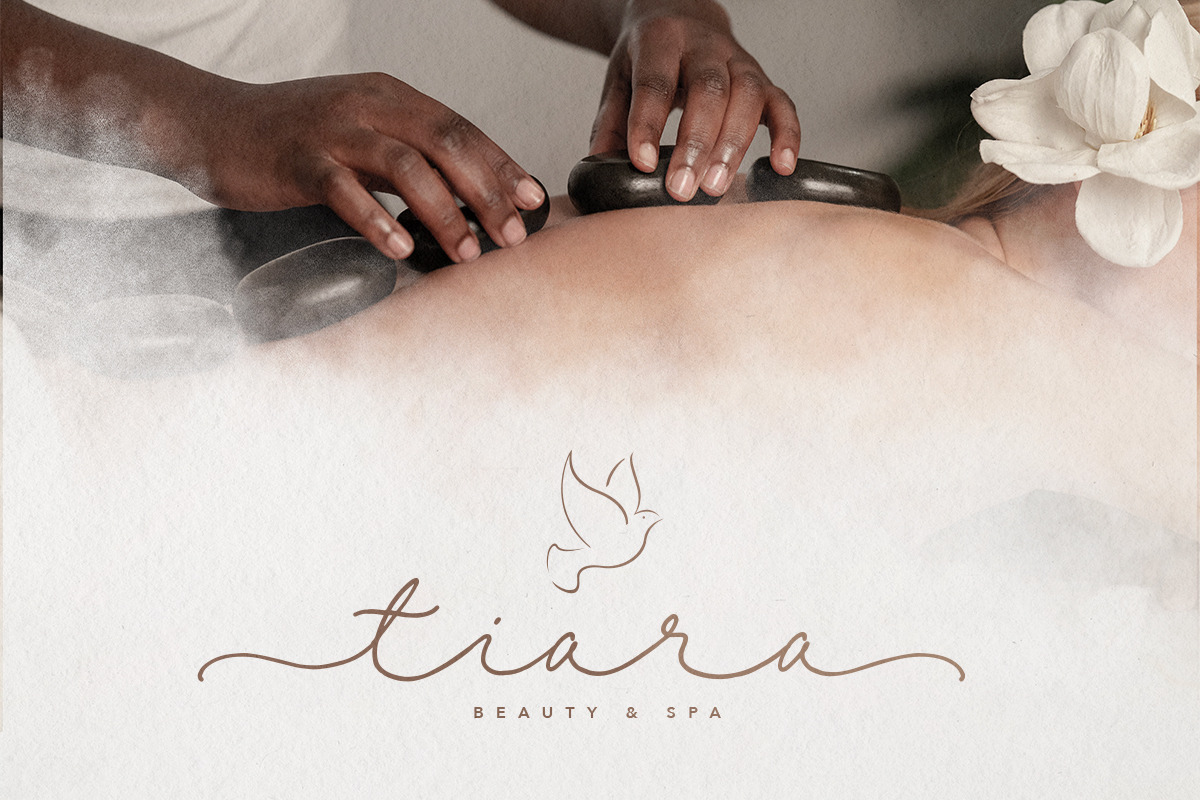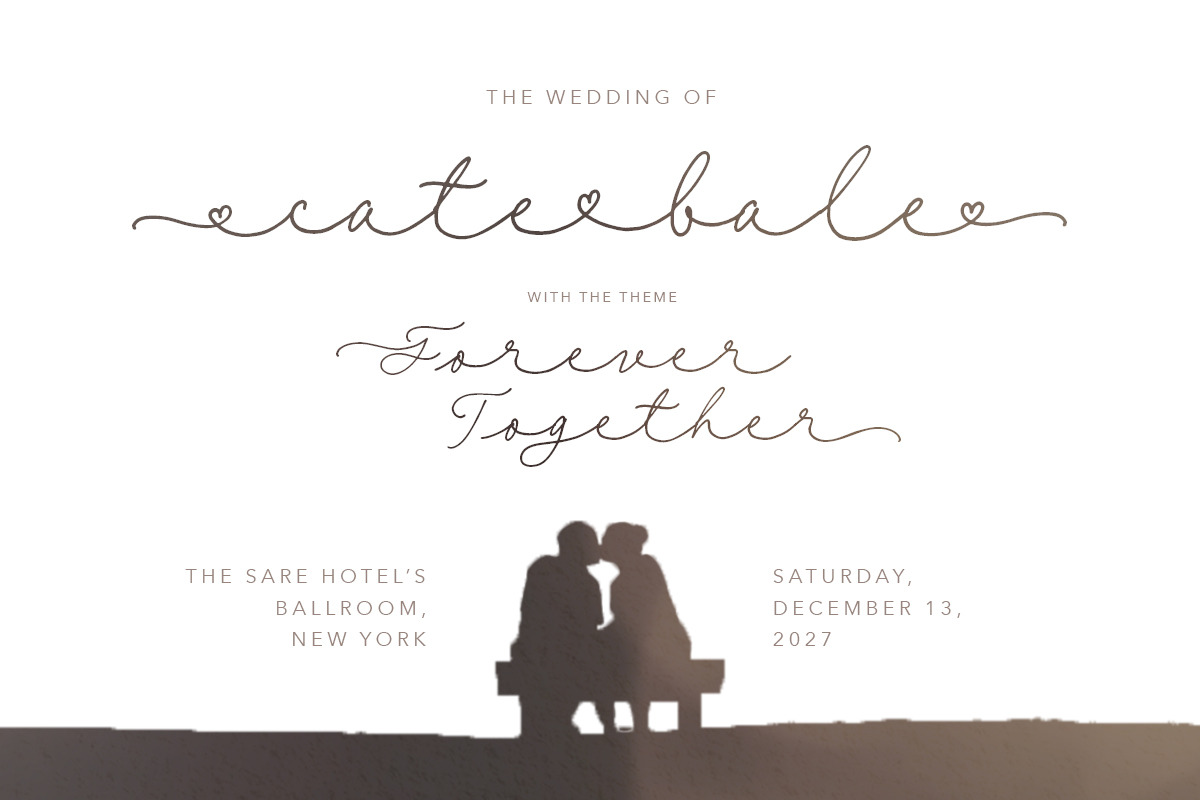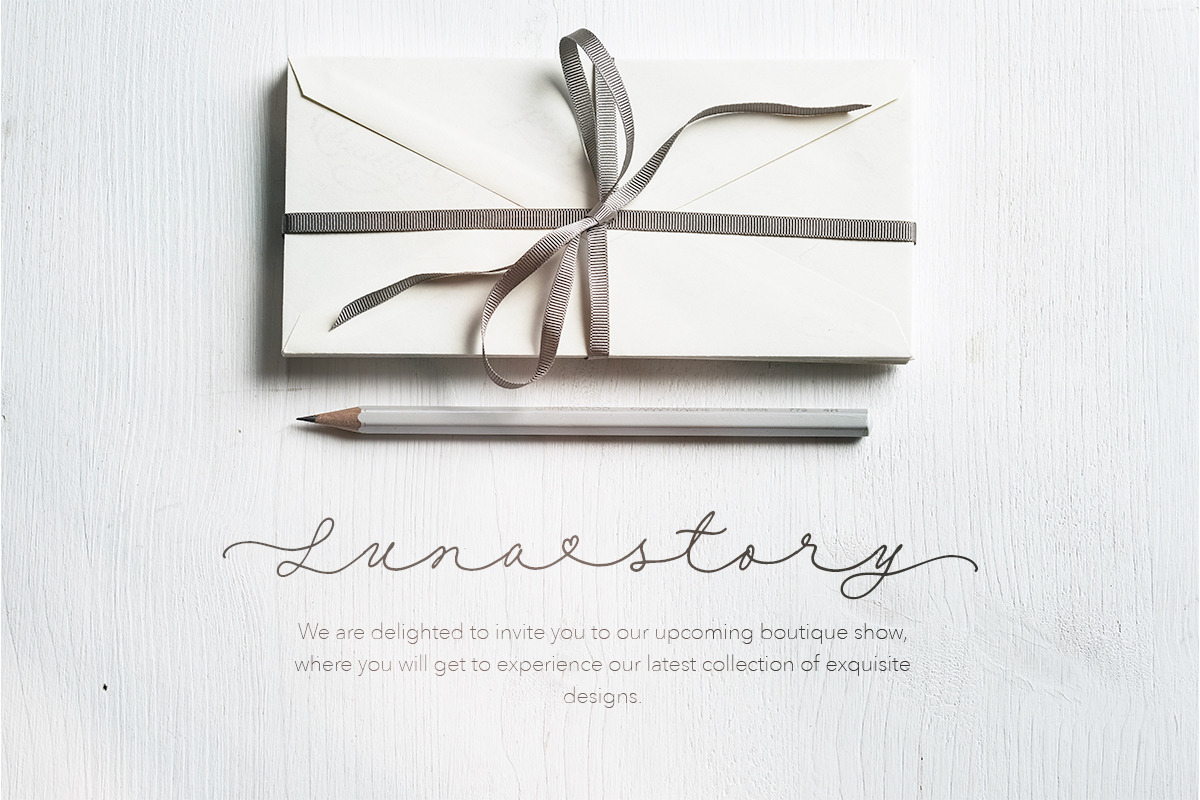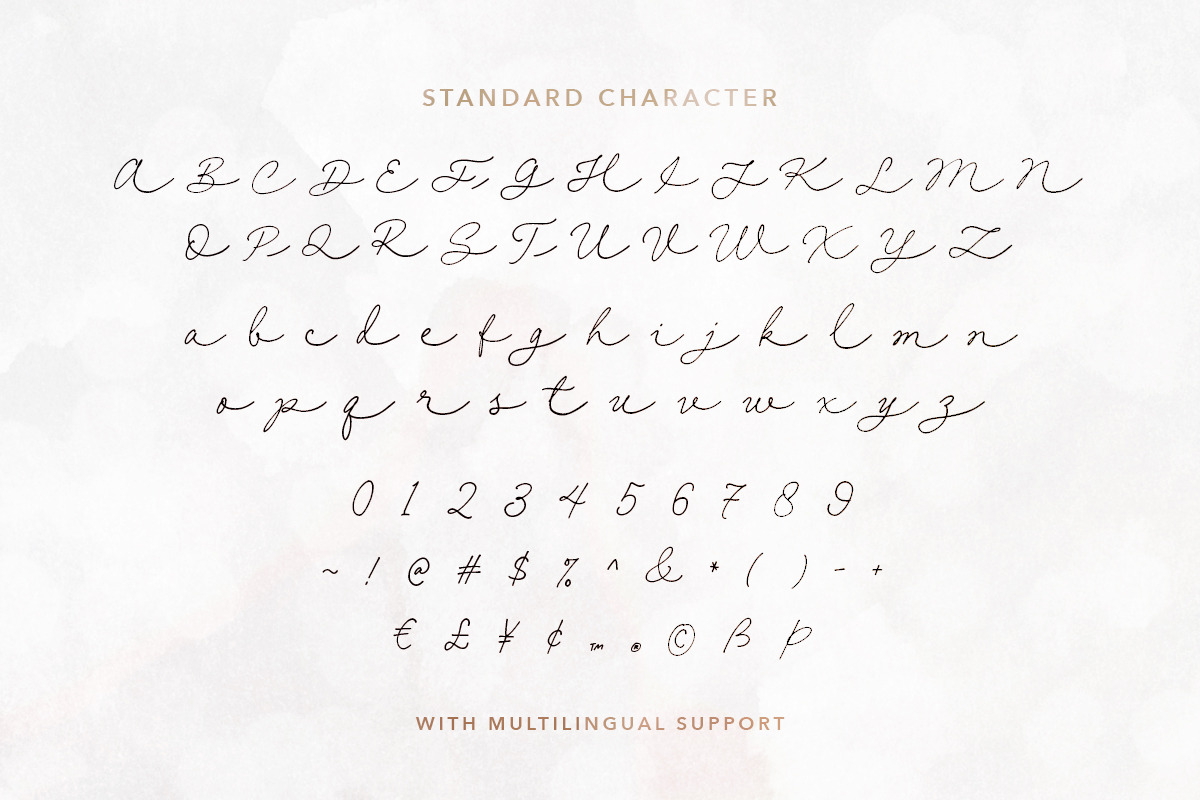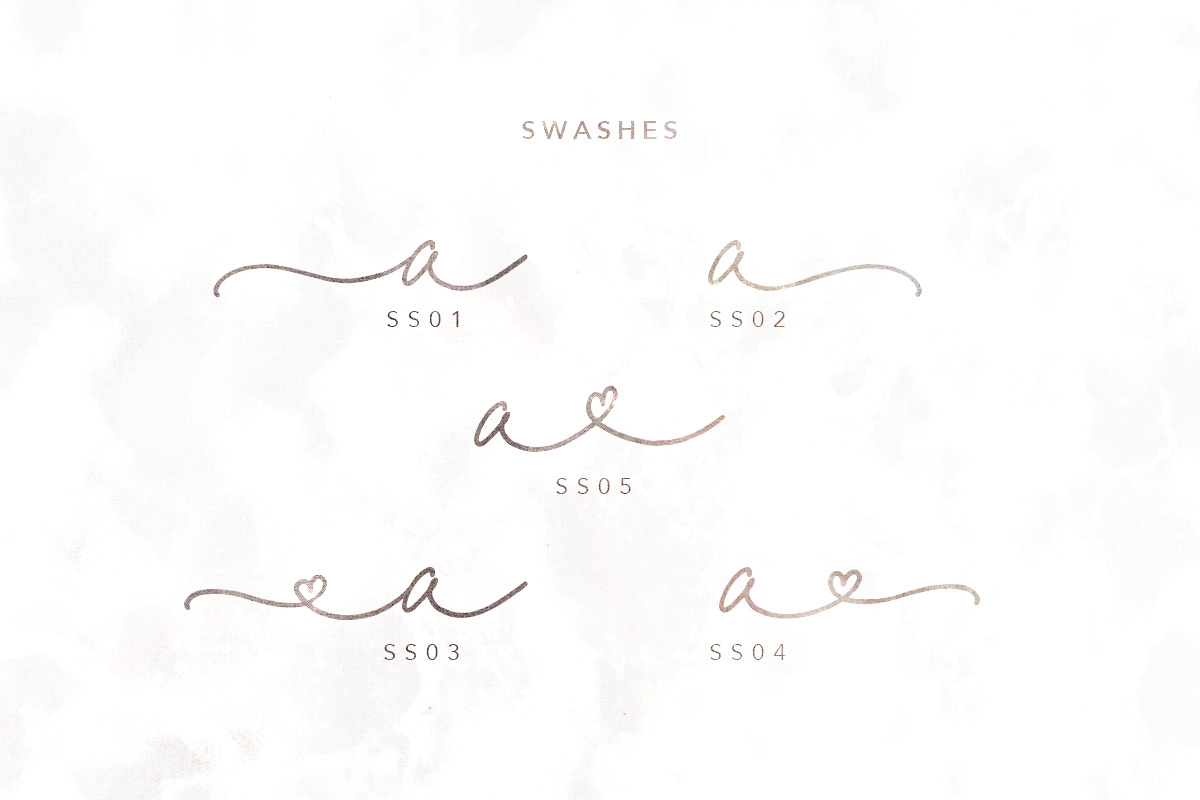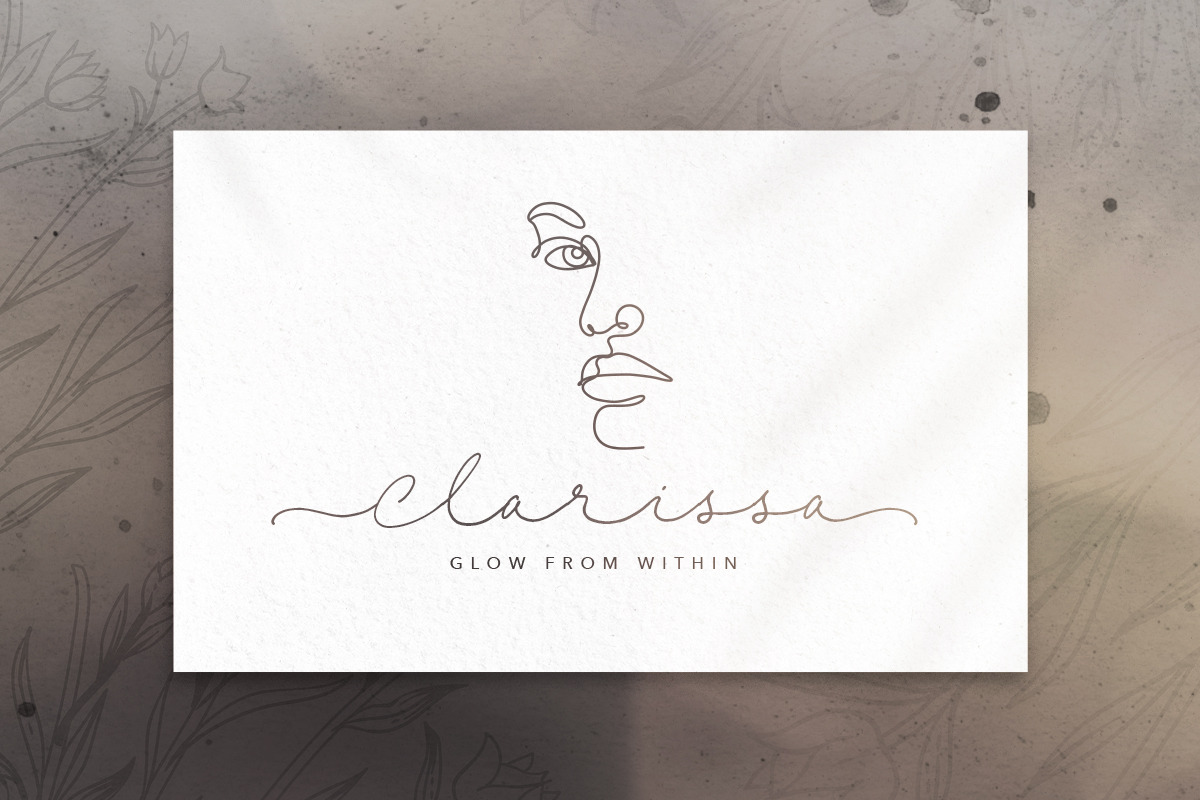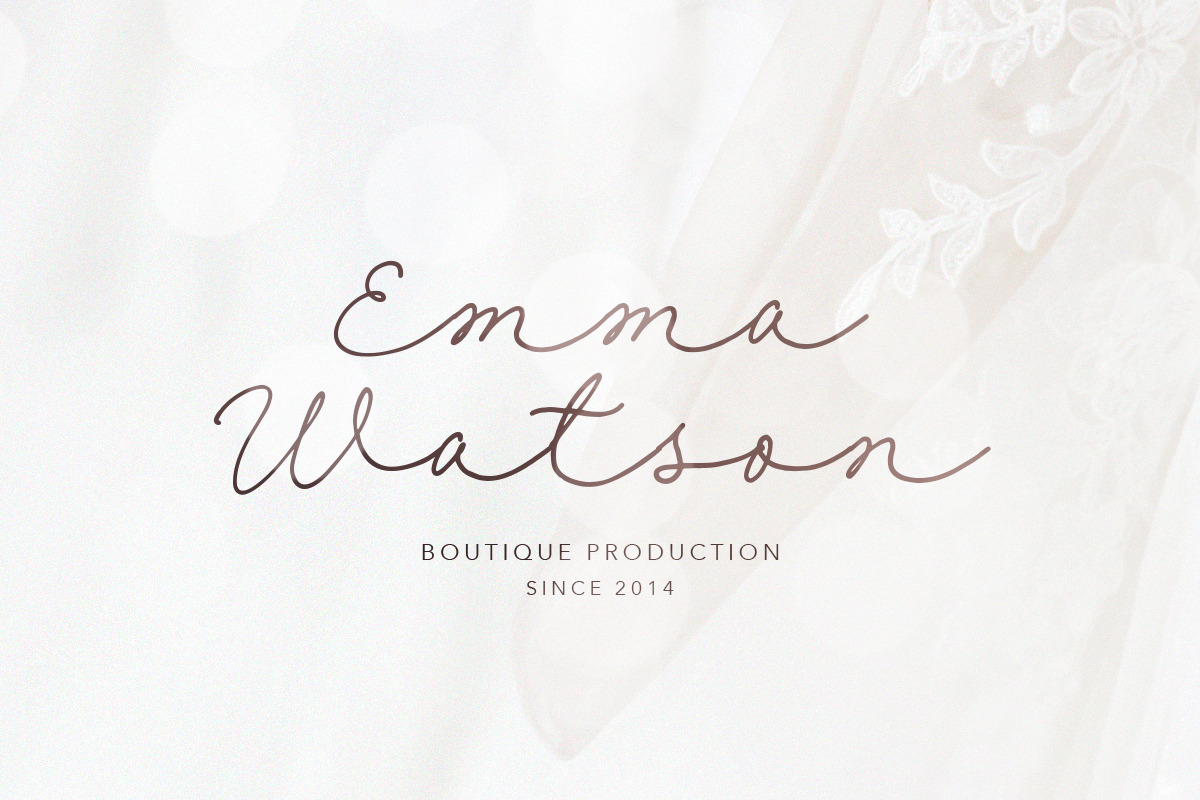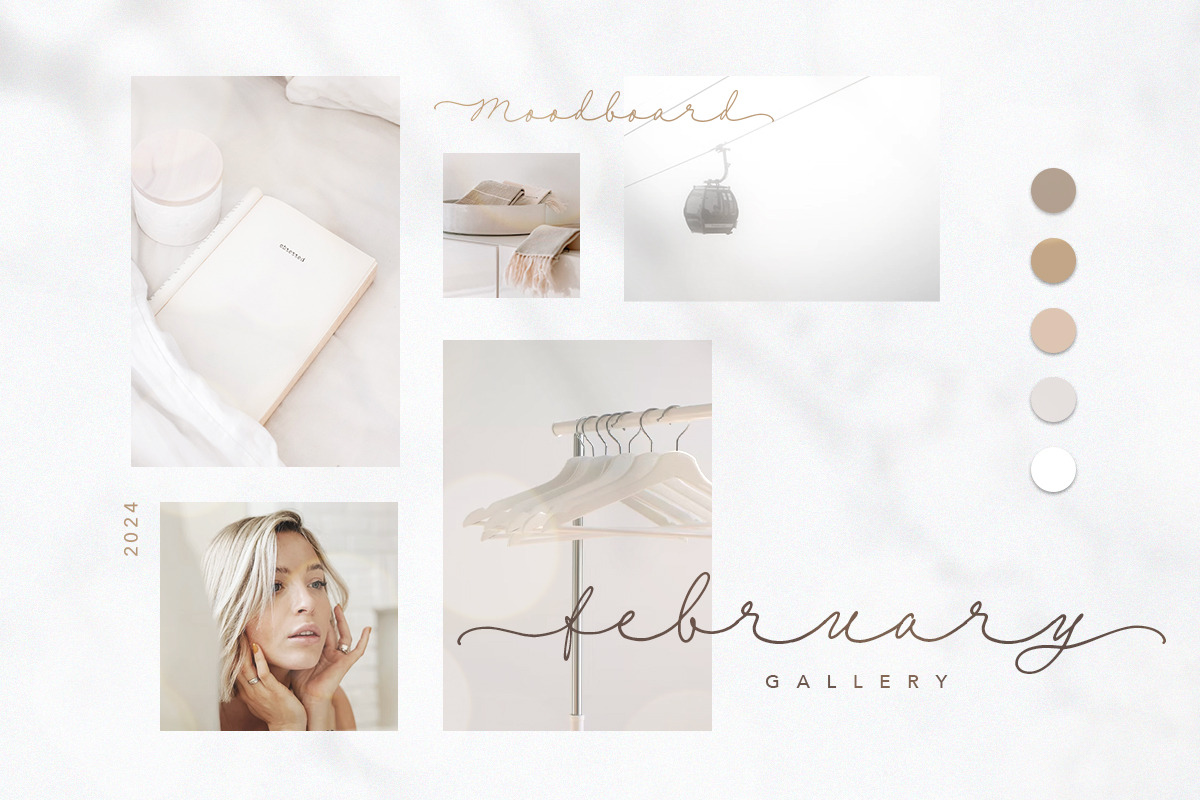
Her Him - Long Handwritten Script
Introducing, Her Him, a long handwritten script!
Her Him is a lovely and handmade script font that you can use for any purpose especially for wedding invitation. You also can use this font for pairing to another font like sans and serif. With lovely connector as lowercase alternates, you can make two names or two words connected with love as seen in previews. And with terminal and end swashes, you can make your design more lovely and charming. This font is also support multi language.